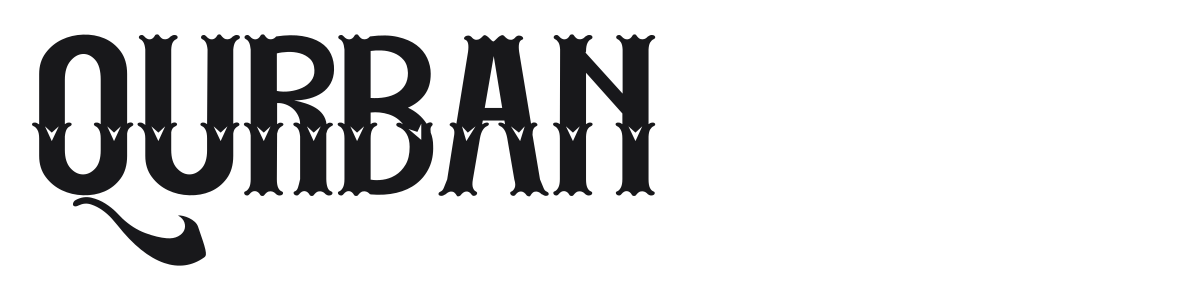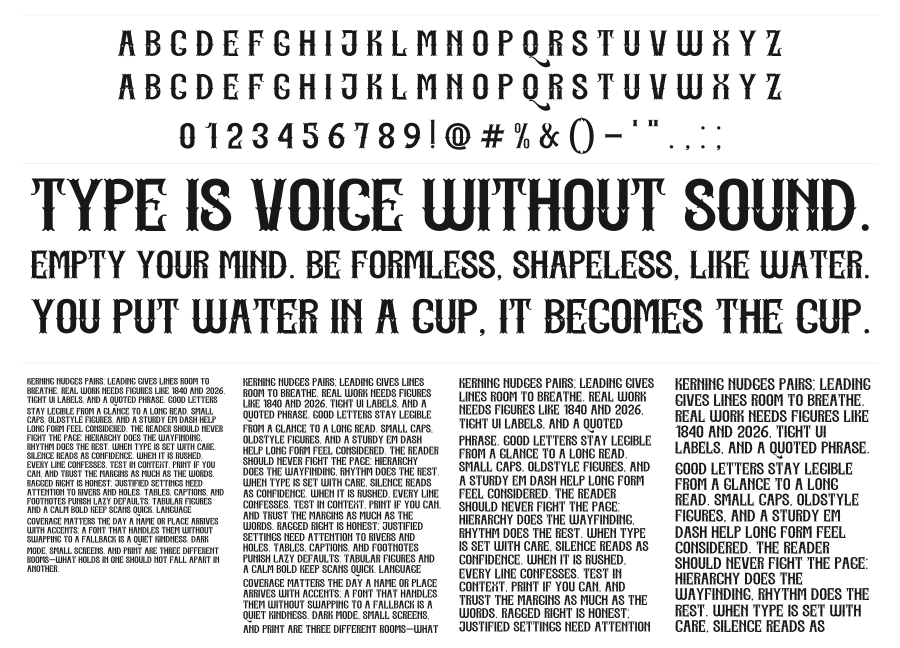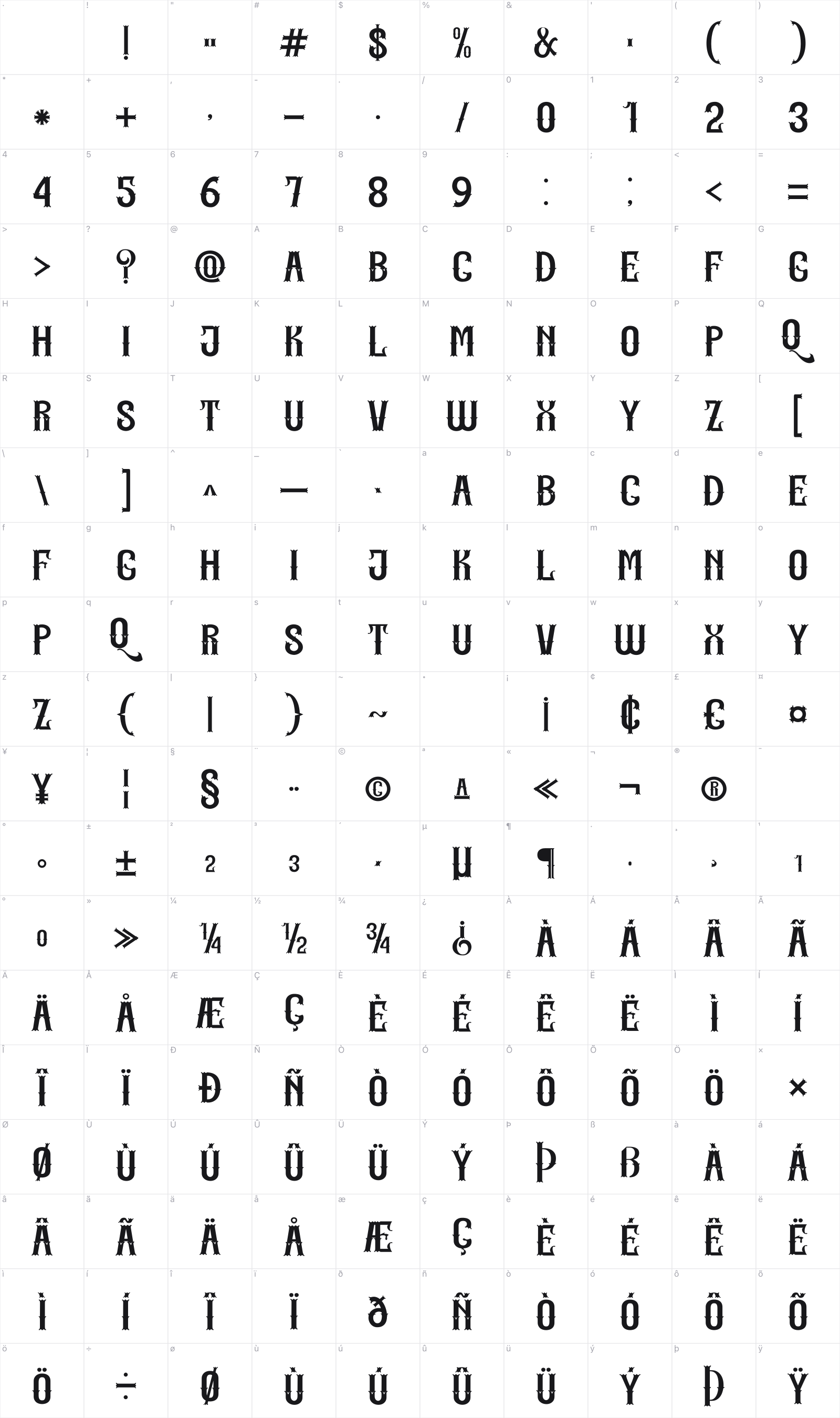
Qurban
Qurban is a condensed gothic display font bristling with sharp, thorn-like spurs projecting from nearly every stroke and serif. The Victorian-meets-horror aesthetic draws on blackletter traditions while pushing into overtly decorative, almost menacing territory. It works at large sizes where the spiky ornamental detail can be fully appreciated.